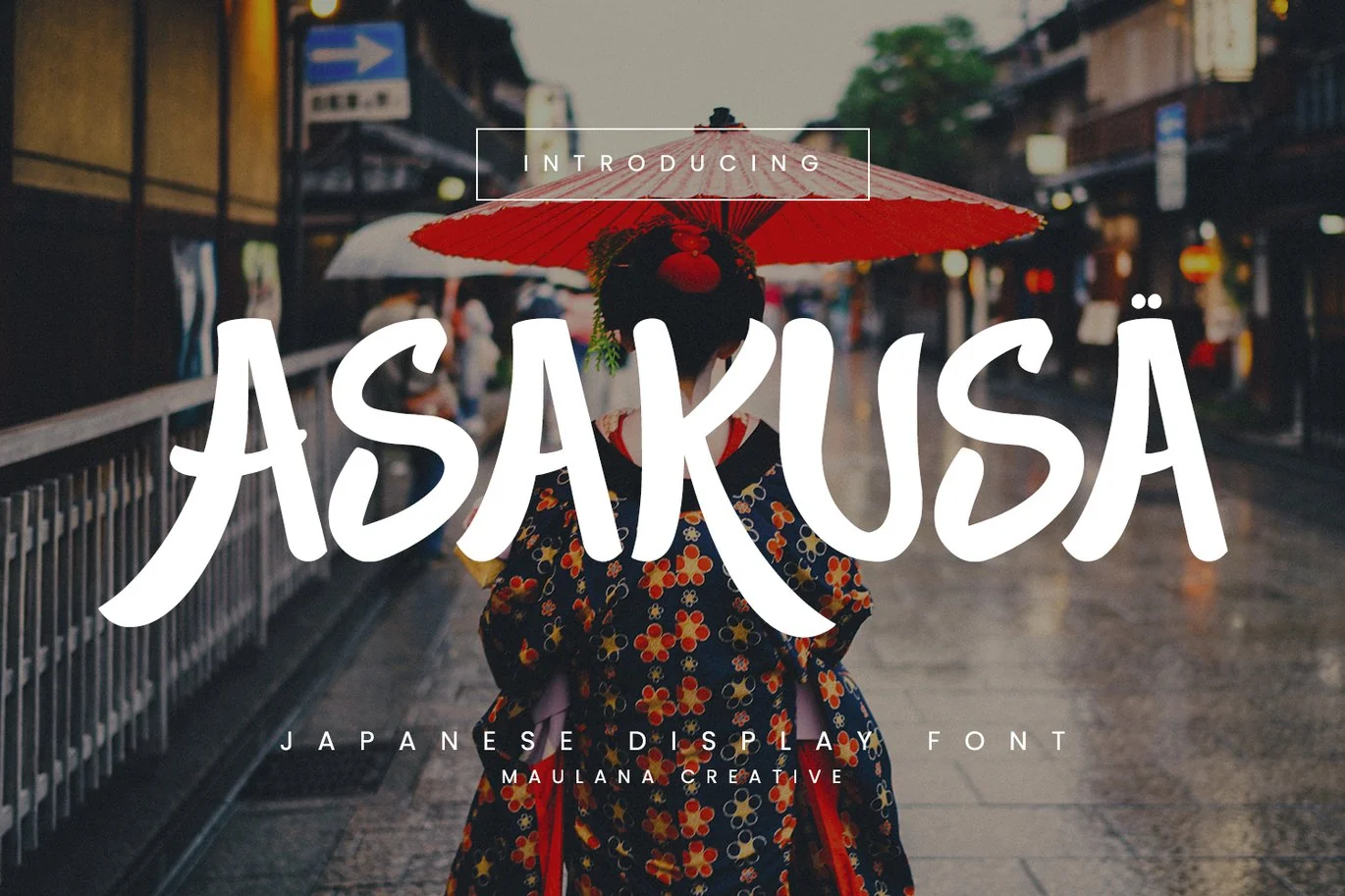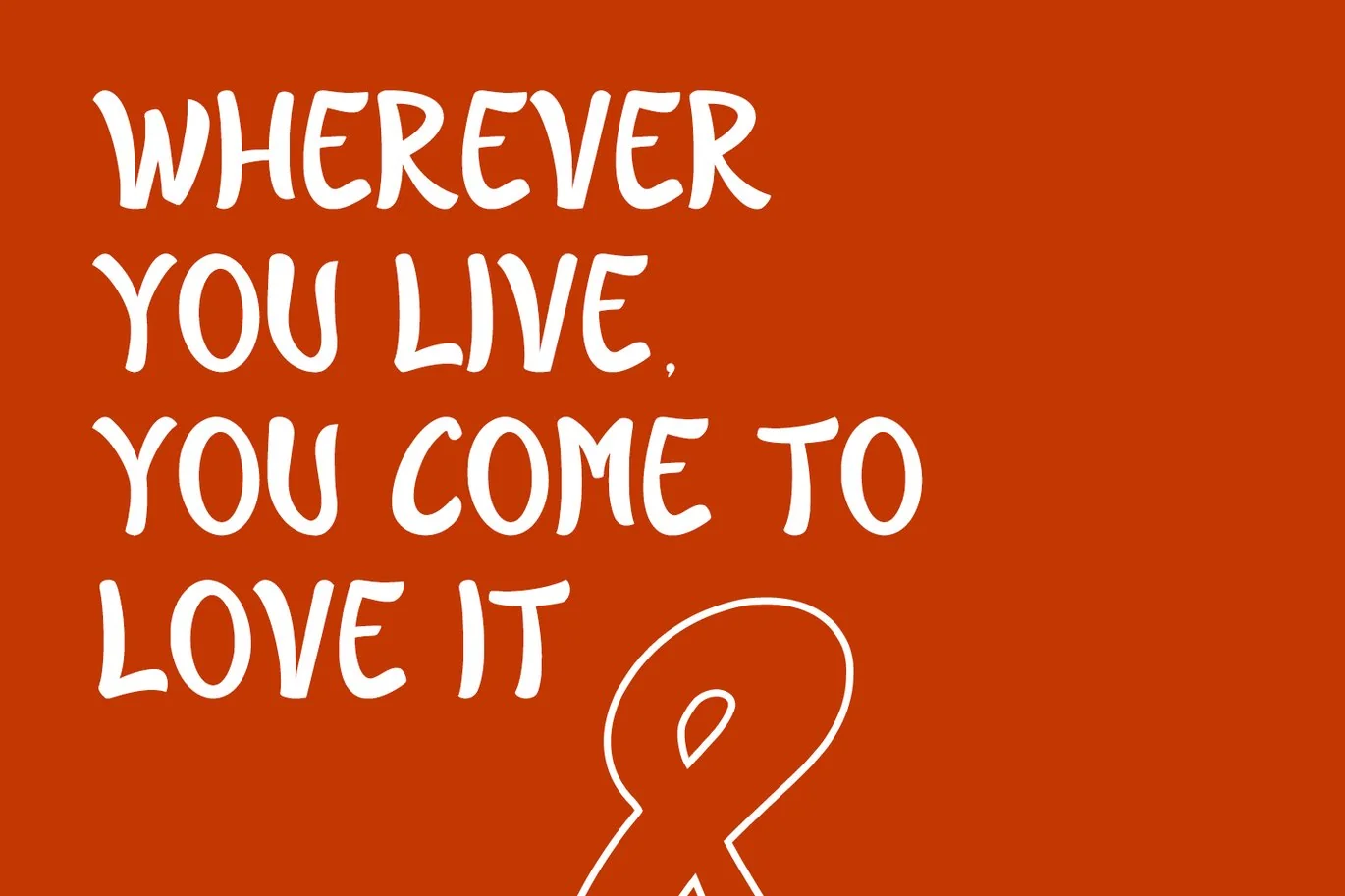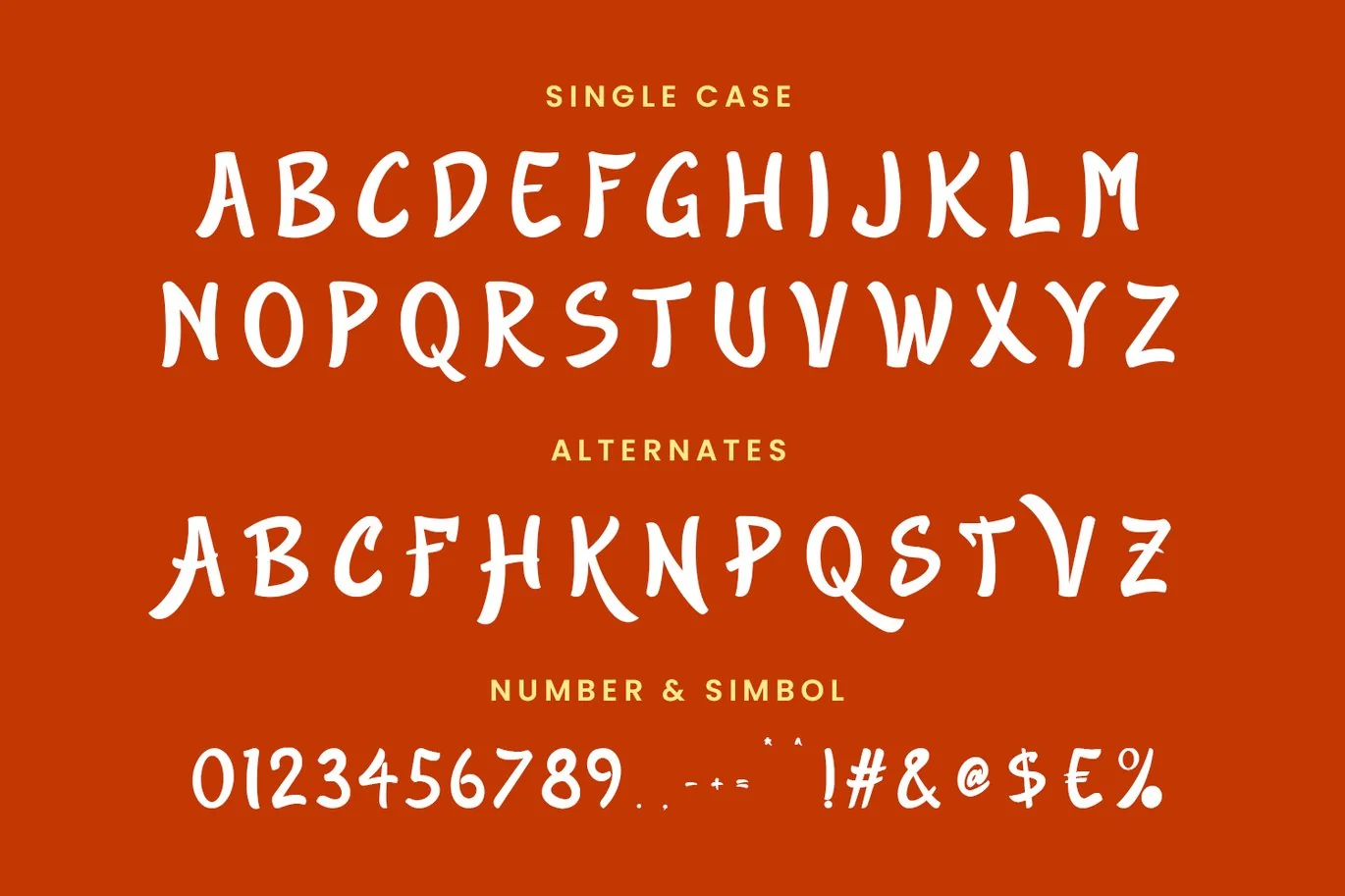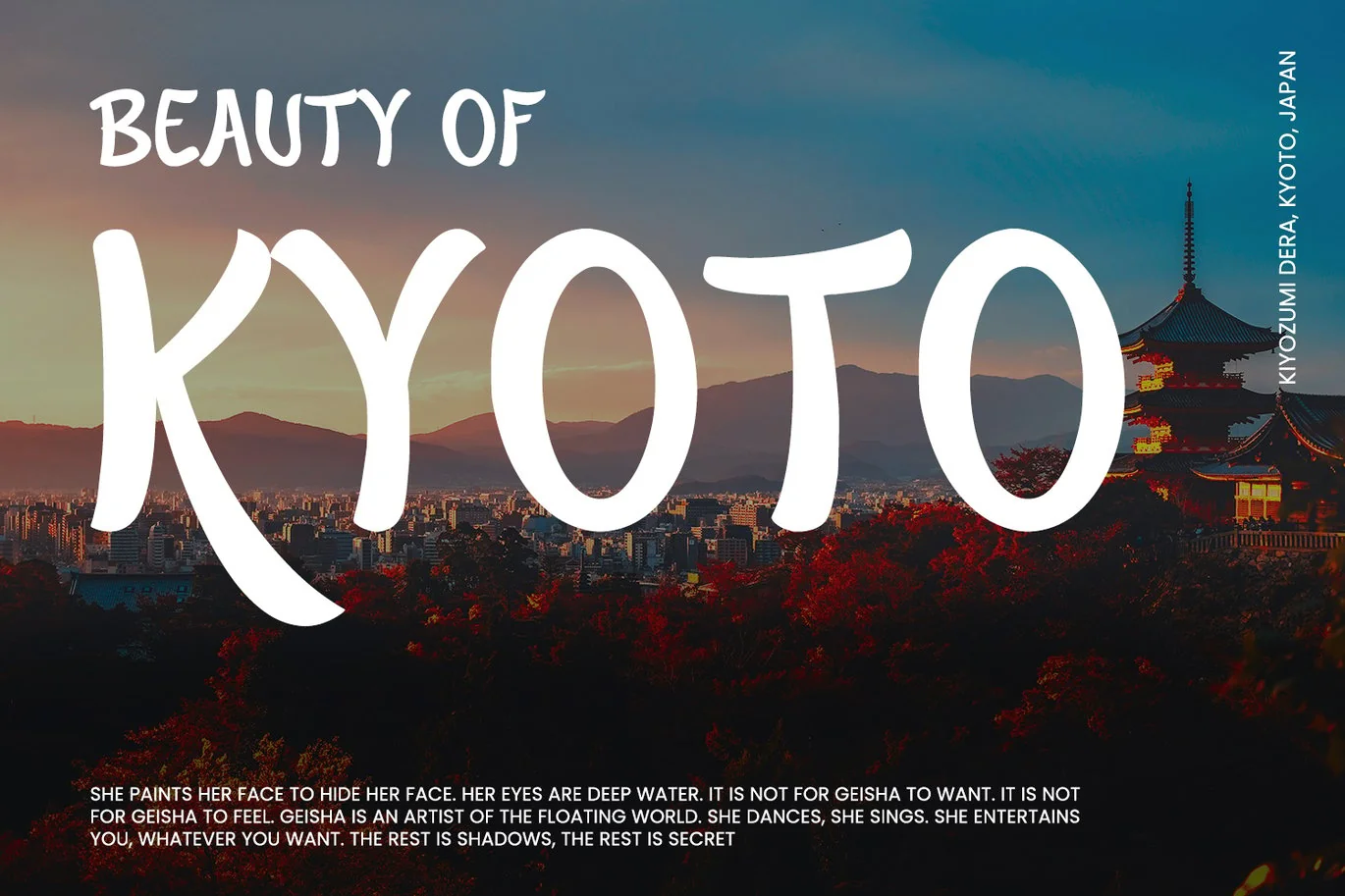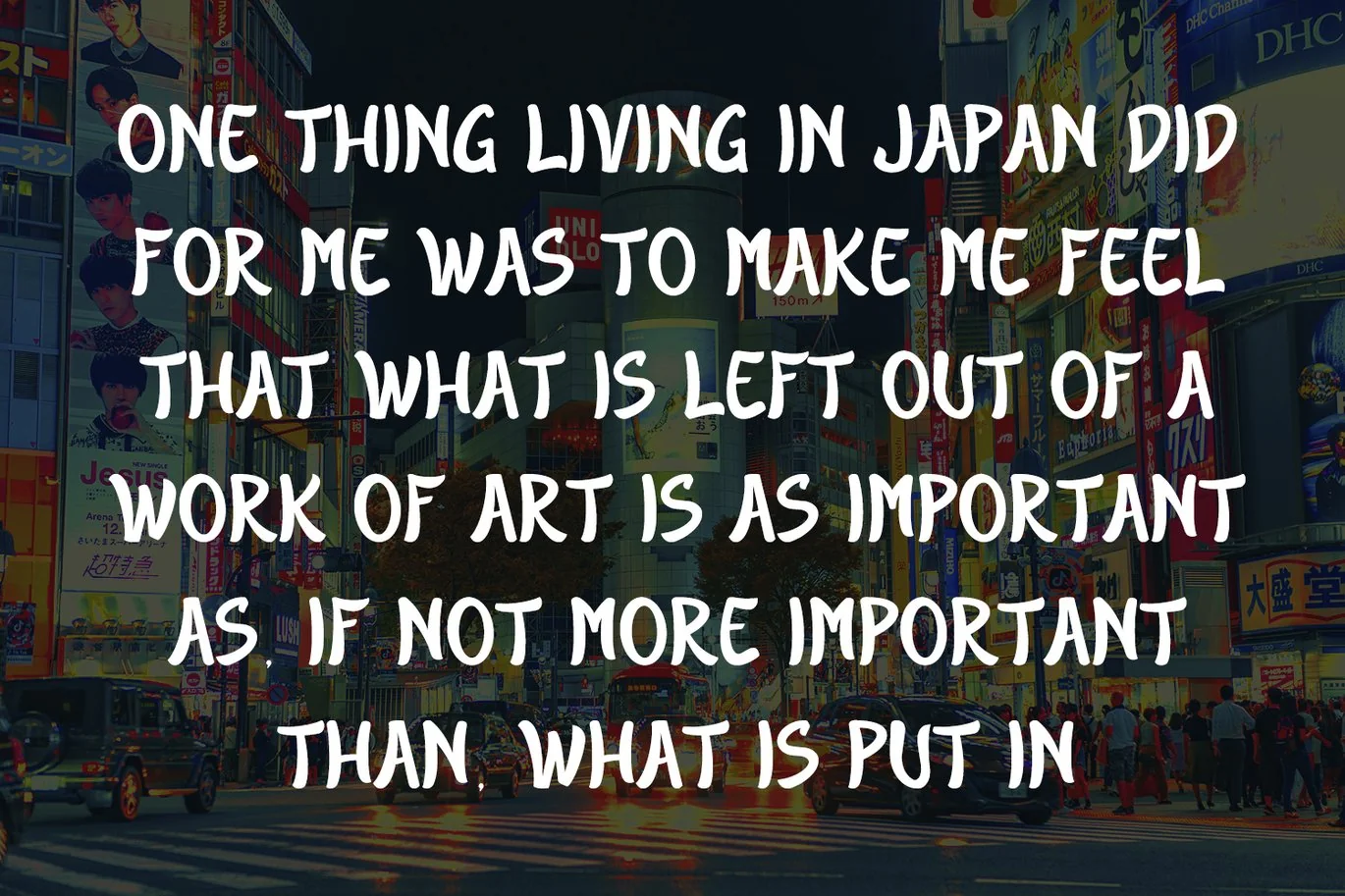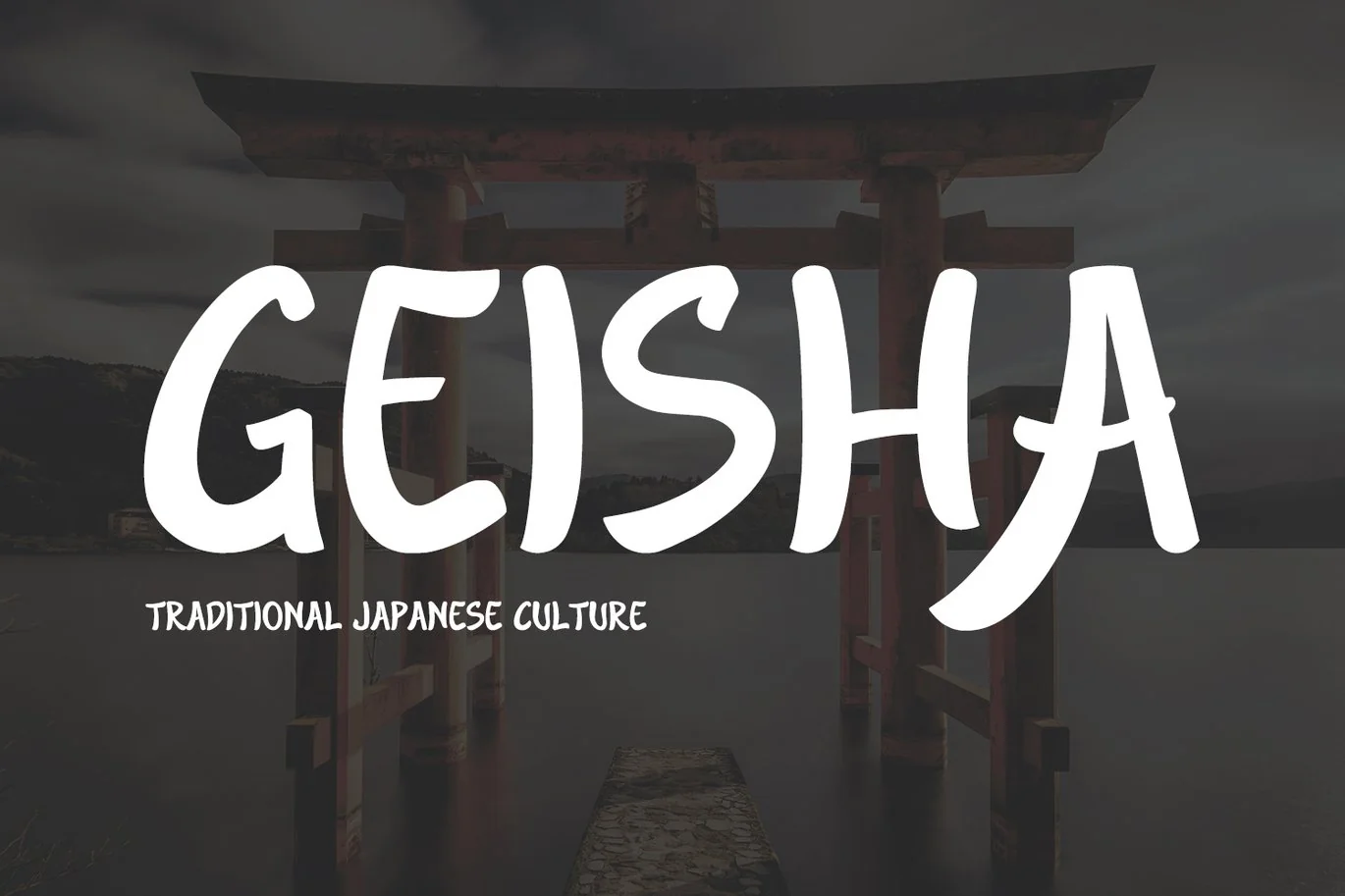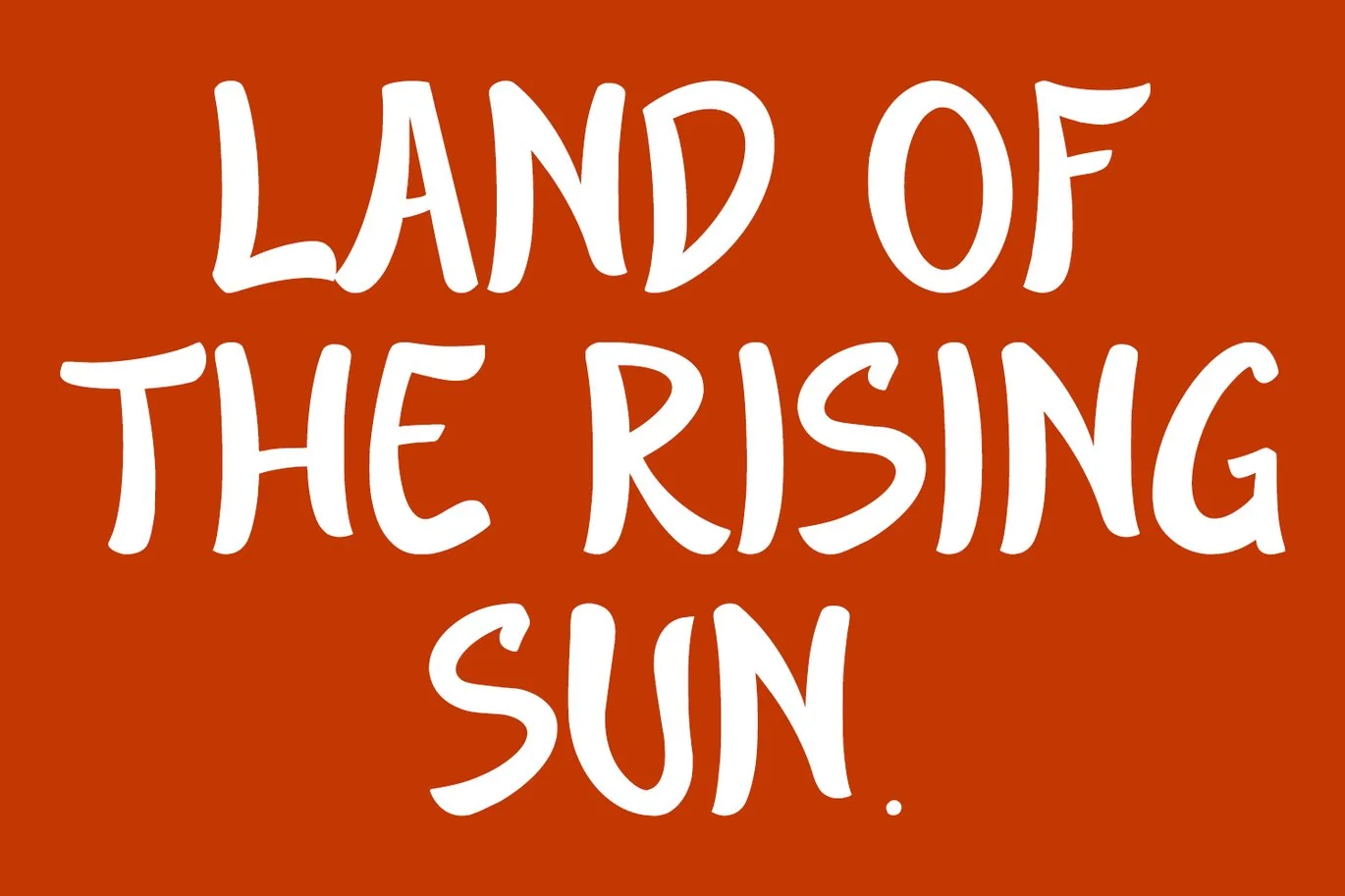
Asakusa Japanese Display Font
Asakusa is a japanese modern display font. Bold stroke, fun character with a bit of ligatures and alternates. To give you an extra creative work. Asakusa font support multilingual more than 100+ language. This font is good for logo design, Social media, Movie Titles, Books Titles, a short text even a long text letter and good for your secondary text font with script or serif. Make a stunning work with Asakusa font.